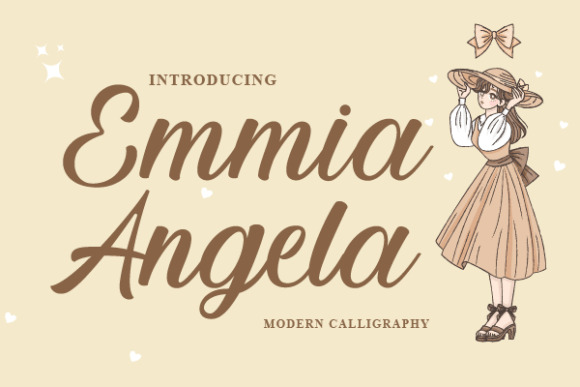
Introducing Emmia Angela - A Script Font Symphony for Your Creative Endeavors.
Unleash the allure of handwritten elegance with Emmia Angela, a captivating script font that dances across your designs with grace. Each letter, meticulously crafted by fiqiart, exudes a charm that is both timeless and modern, making it the perfect choice for a myriad of projects.
Dive into the world of Emmia Angela and discover a font that is:
* **Mesmerizingly Beautiful:** Its delicate strokes and sweeping curves create a visual masterpiece that will leave your audience spellbound.
* **Effortlessly Versatile:** With its ability to seamlessly blend with various design styles, Emmia Angela is your go-to font for wedding invitations, thank-you cards, quotes, greeting cards, logos, business cards, and any project that calls for a touch of handwritten artistry.
* **A Creative's Delight:** Let your imagination run wild as you explore the endless possibilities that Emmia Angela presents. Its versatility knows no bounds, allowing you to craft designs that are as unique and captivating as your vision.
* **The Perfect Logo Companion:** Looking to create a logo that exudes sophistication and charm? Look no further than Emmia Angela. Its elegant lines and timeless appeal will elevate your brand's identity to new heights.
* **A Touch of Personalization:** Add a personal touch to your designs with Emmia Angela. Its handwritten nature lends a sense of intimacy and warmth, creating a connection with your audience that is both genuine and memorable.
* **A Journey Through Time:** With Emmia Angela, you'll embark on a journey through time, where the charm of the past meets the vibrancy of the present. Its classic script style evokes a sense of nostalgia while its modern appeal keeps your designs current and relevant.